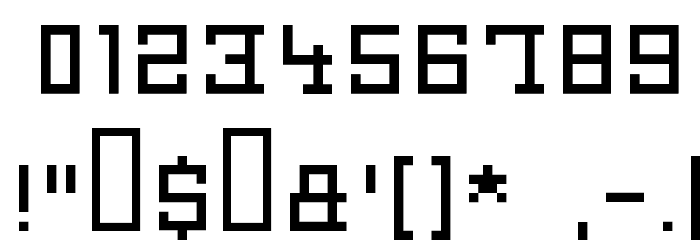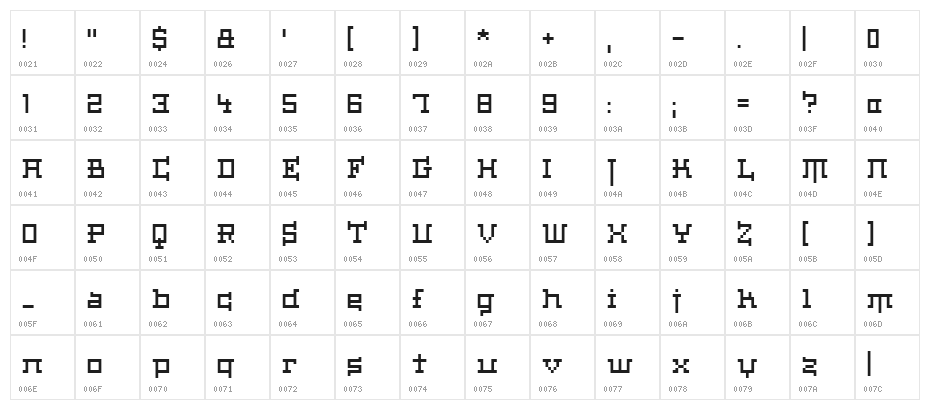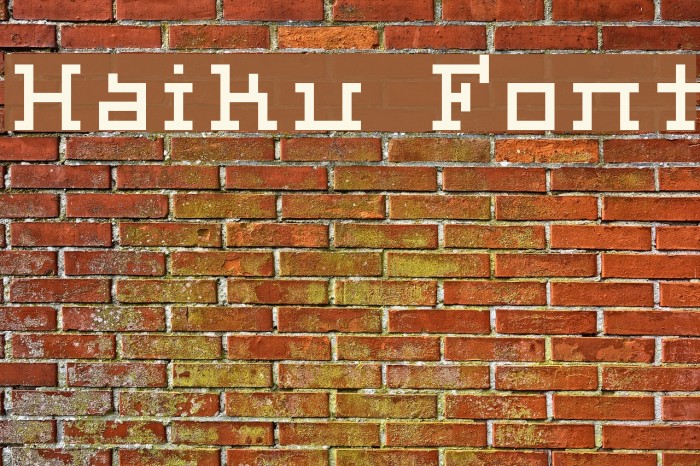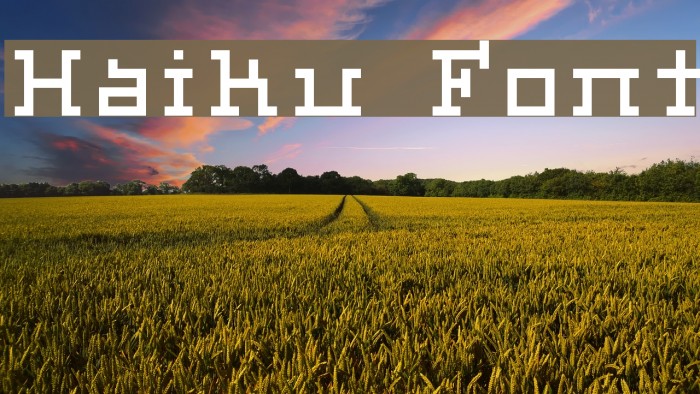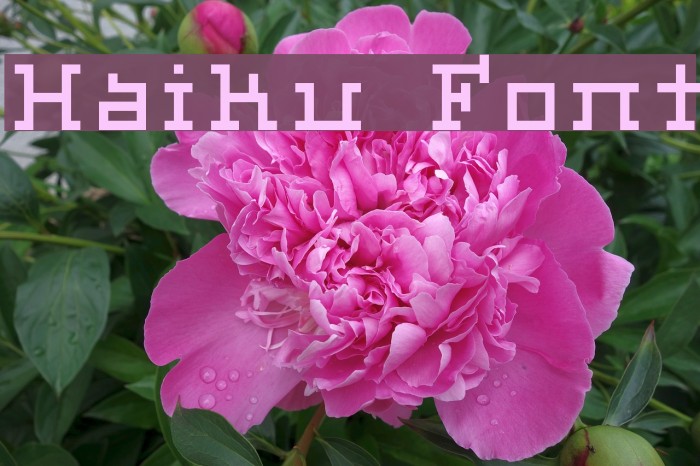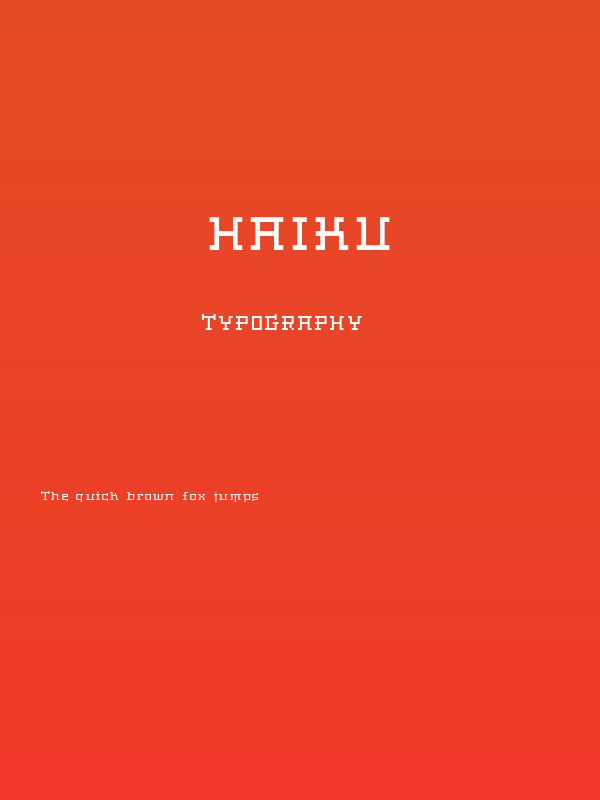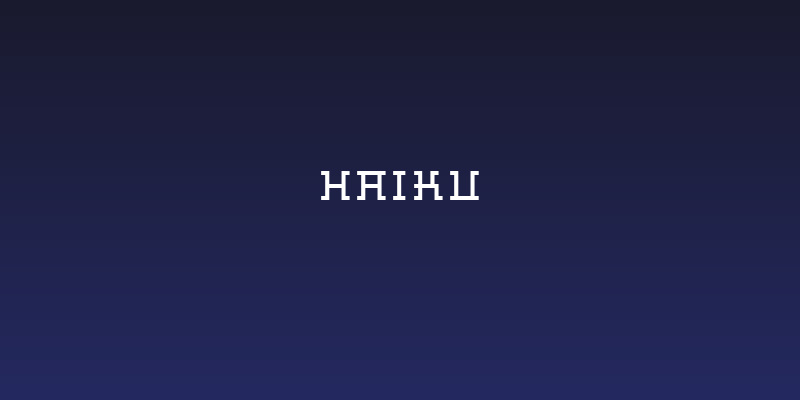
Haiku Font
Haiku Description
This font features a pixelated, blocky design reminiscent of early digital or arcade game typography. Each character is constructed with a uniform grid-like pattern, giving it a distinctly retro and digital aesthetic. The uppercase and lowercase letters maintain a consistent height and width, contributing to a monospaced appearance. The numerals and special characters follow the same design principles, ensuring uniformity across all glyphs. The overall look is clean and minimalistic, with a focus on geometric shapes and straight lines, making it ideal for projects that aim to evoke nostalgia or a tech-oriented theme.
| Use Case | Logos, Headlines, Digital Art |
| Proposed Projects | Ideal for retro video games, tech-themed designs, digital art projects, and any creative work that seeks to capture a vintage digital aesthetic. |